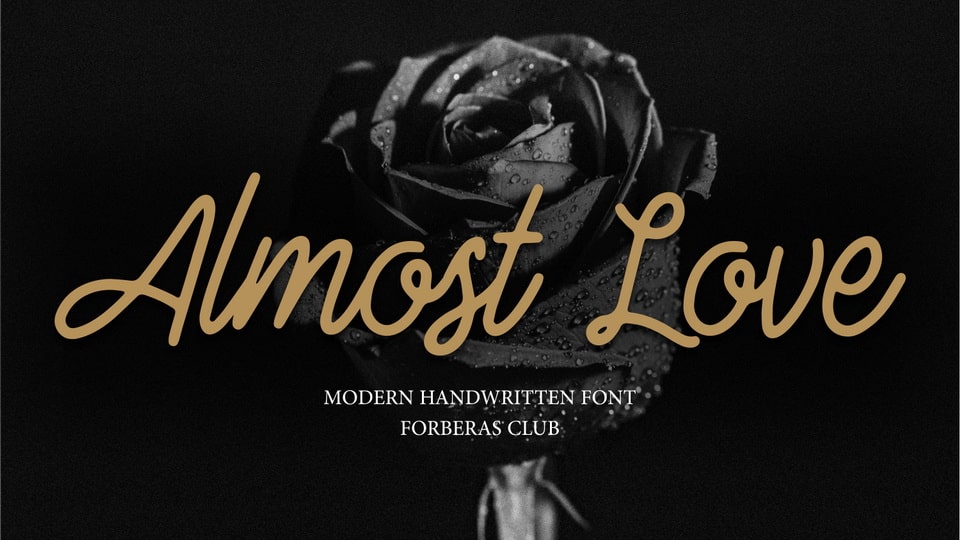
Download Almost Love font, a beautiful, well balanced and vintage styled script. Almost Love font is defined by smooth curves and is perfect for fashion branding or editorial designs.